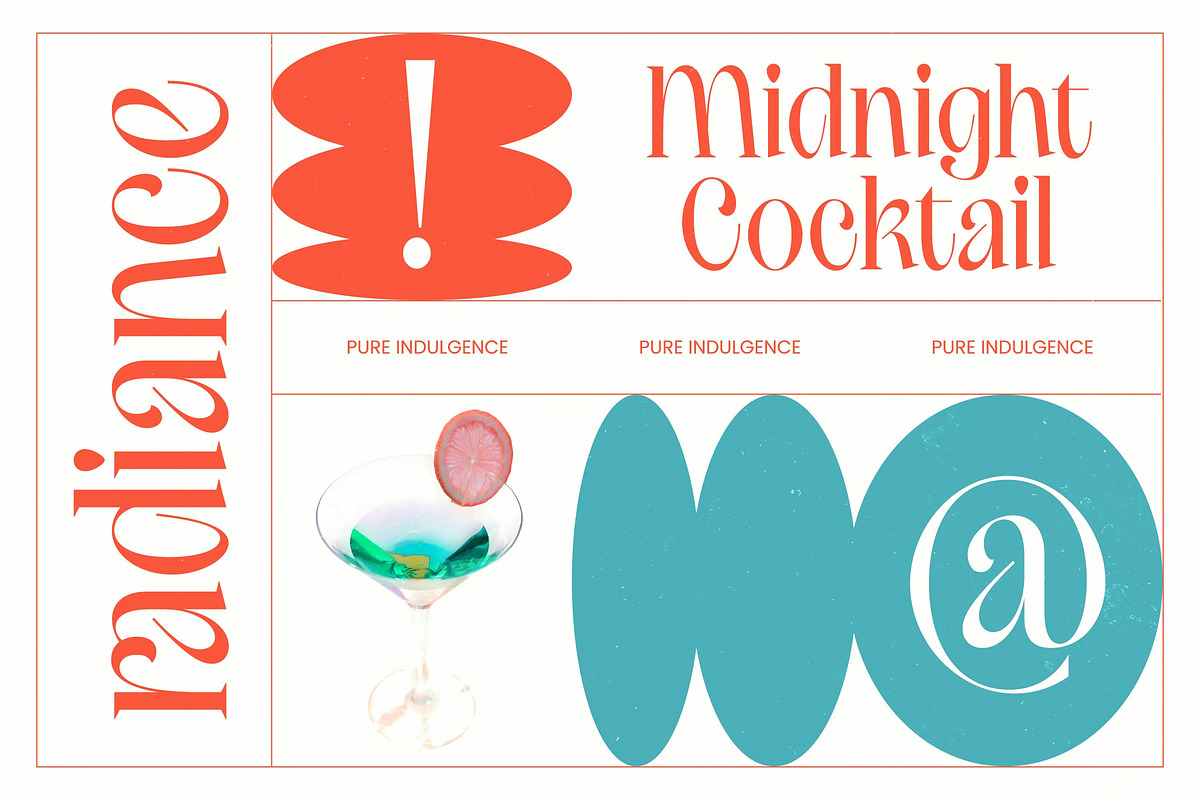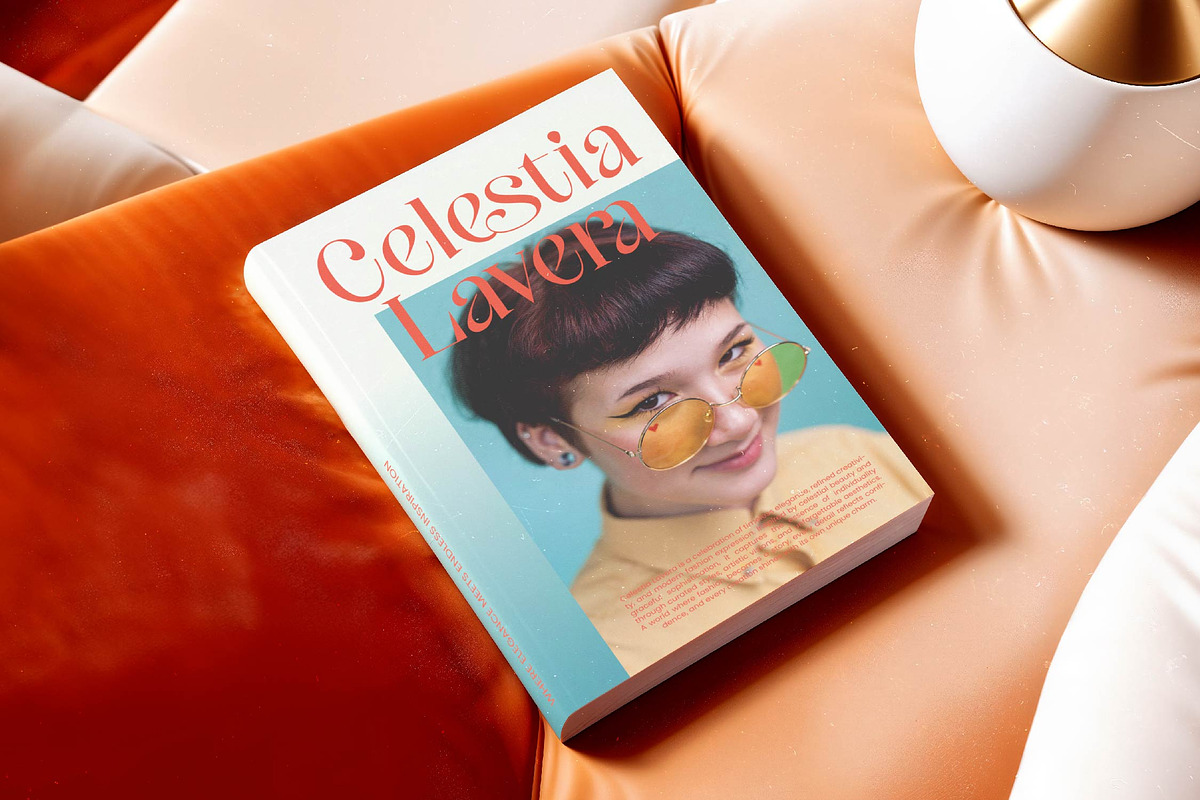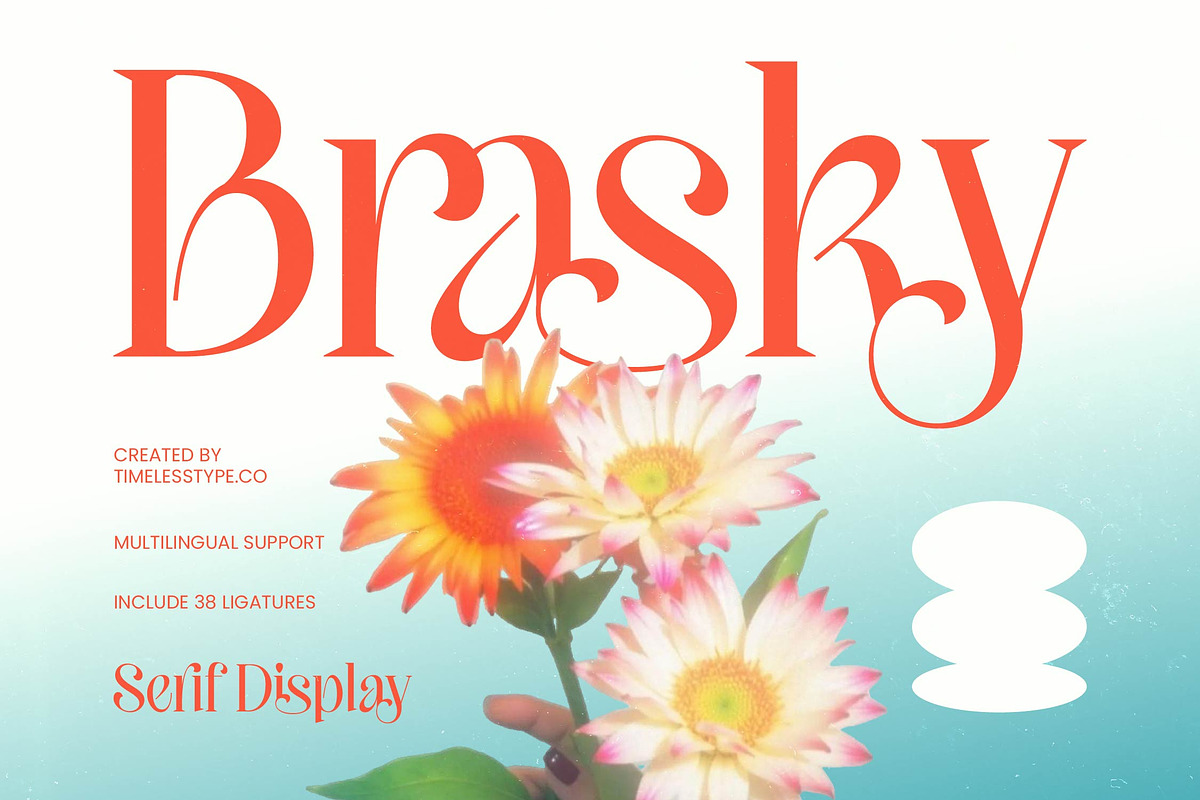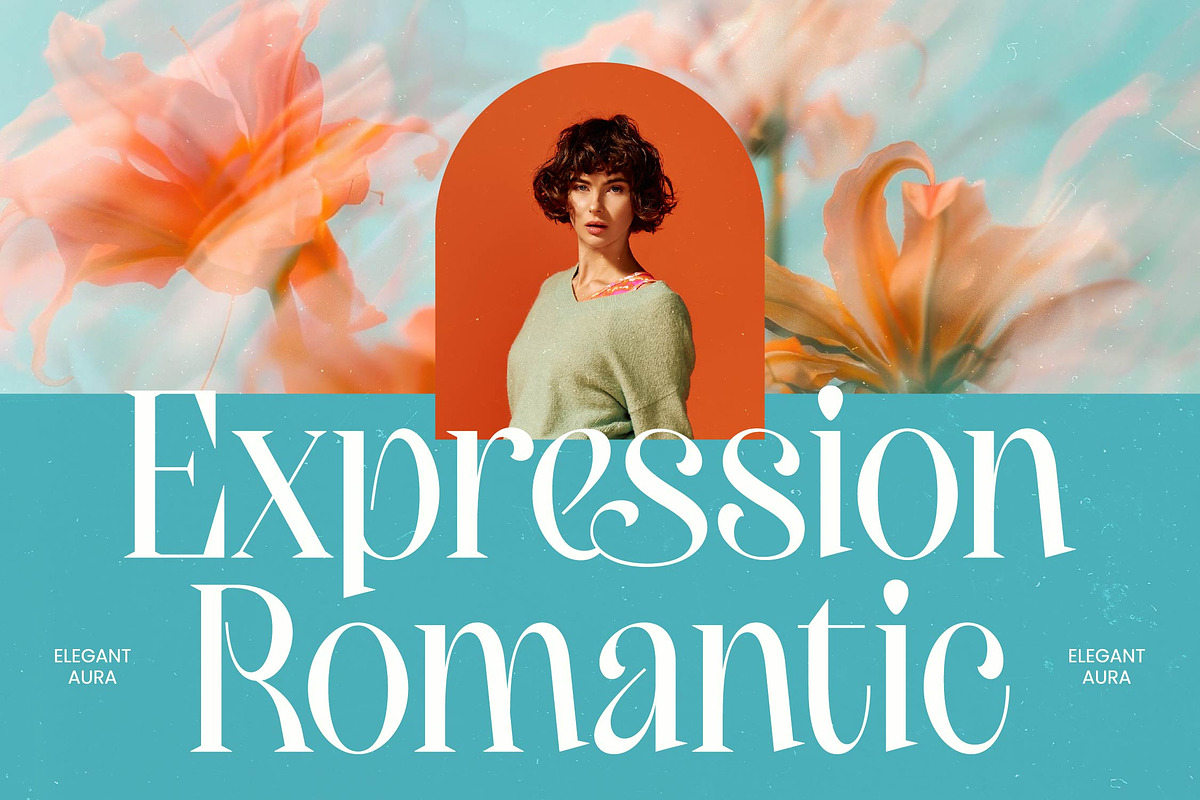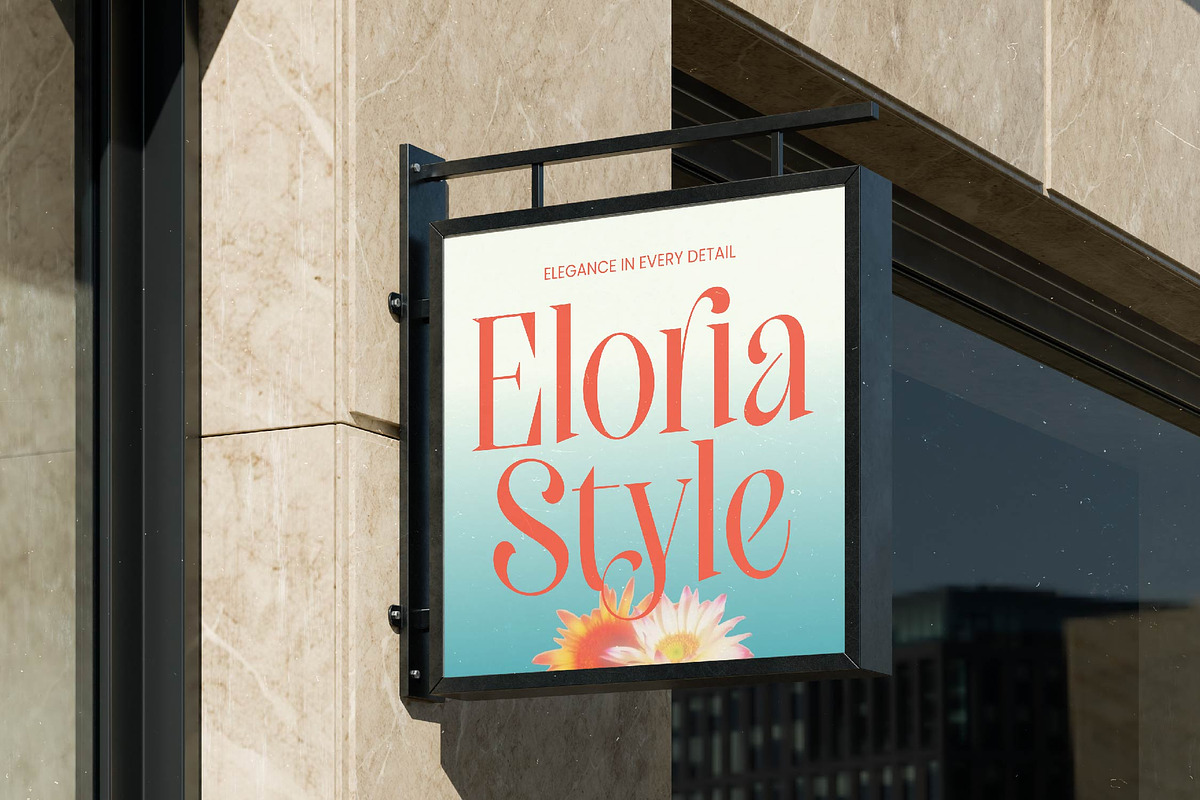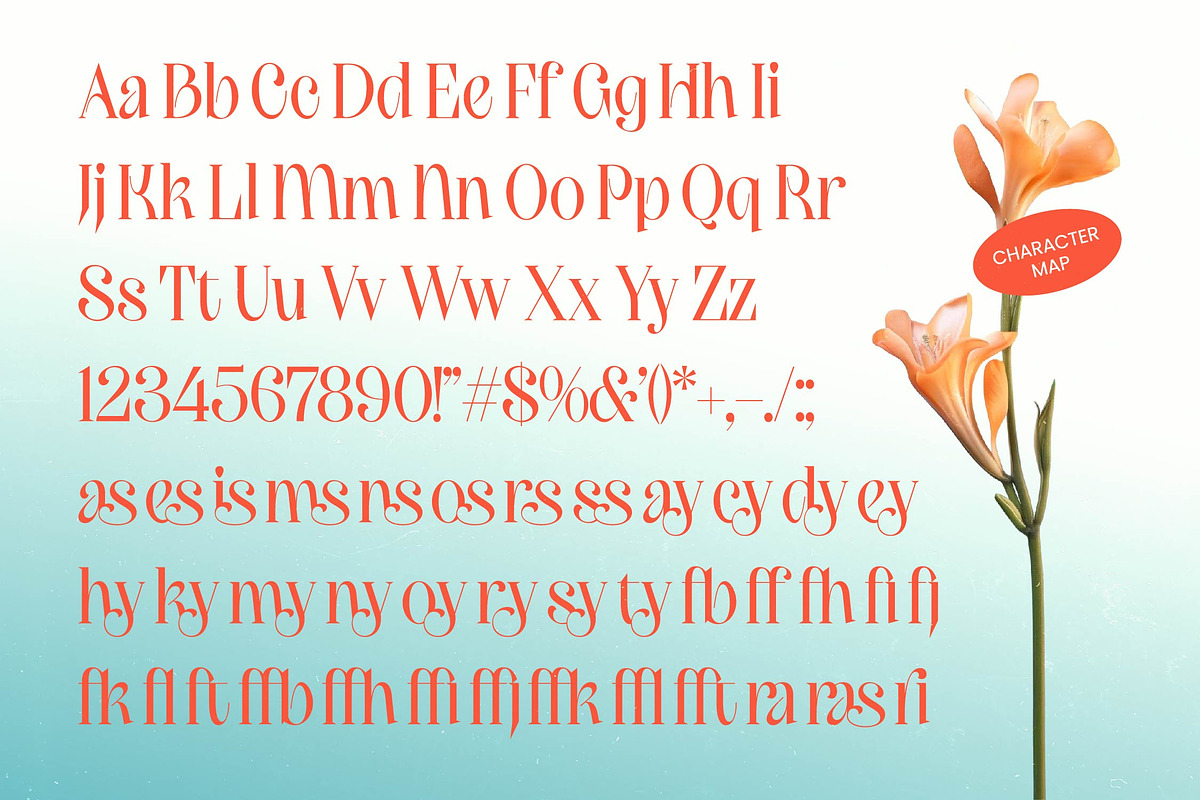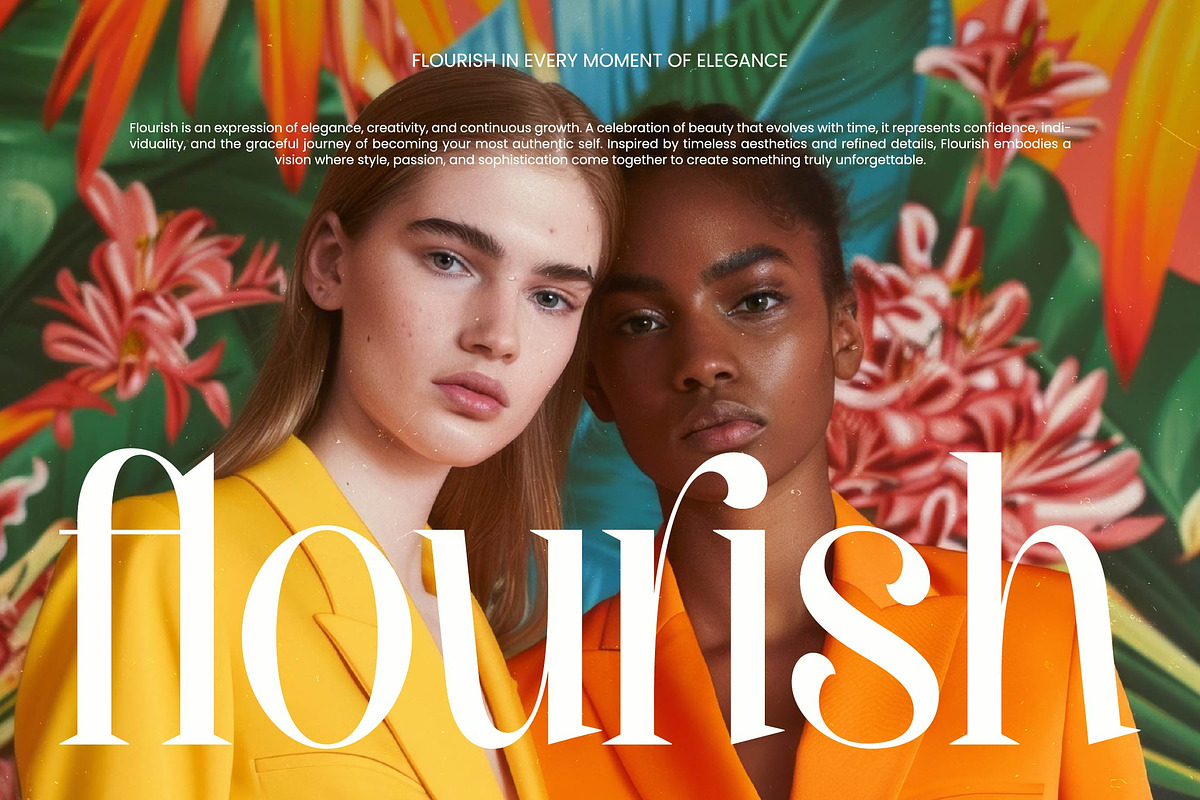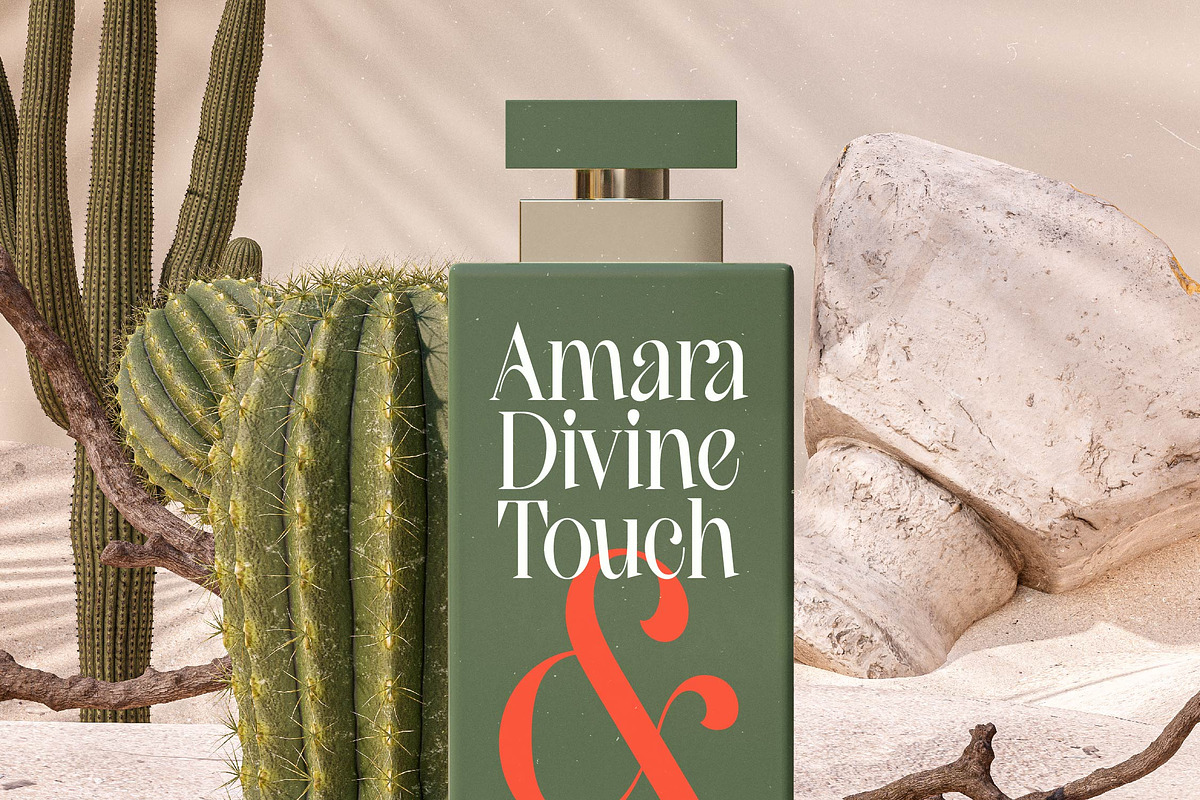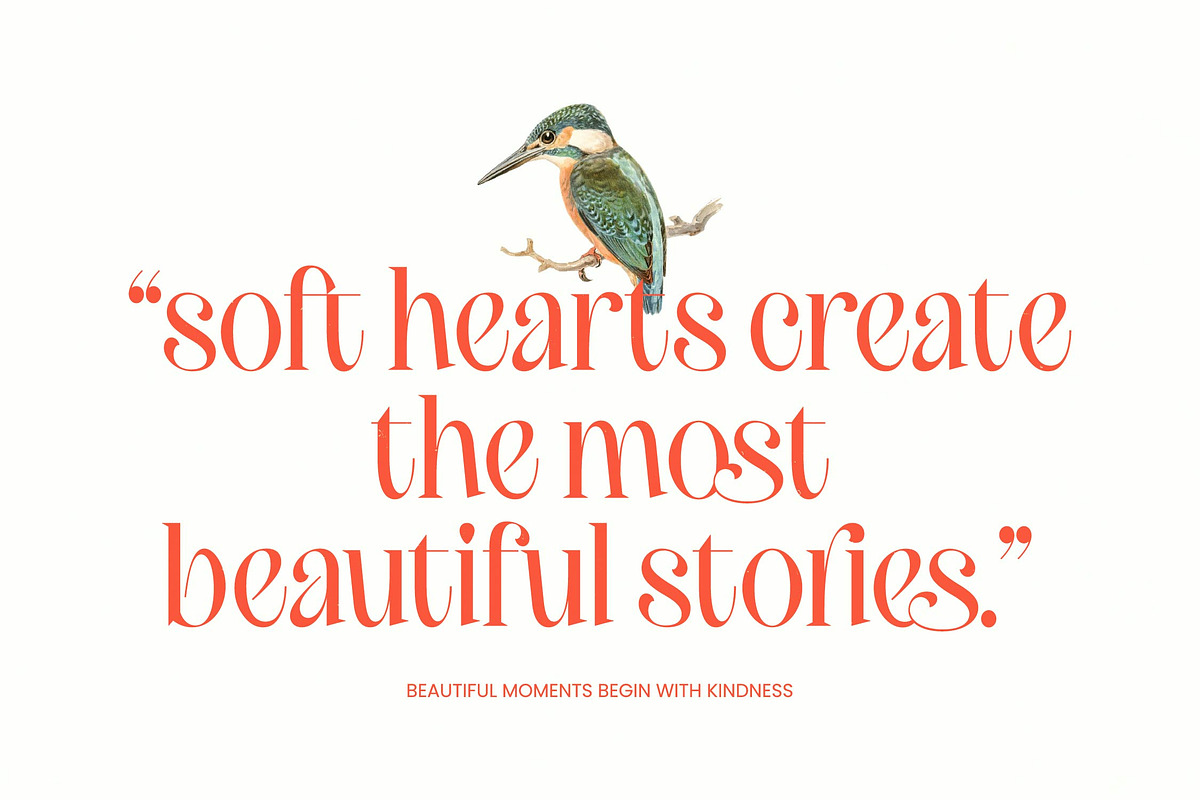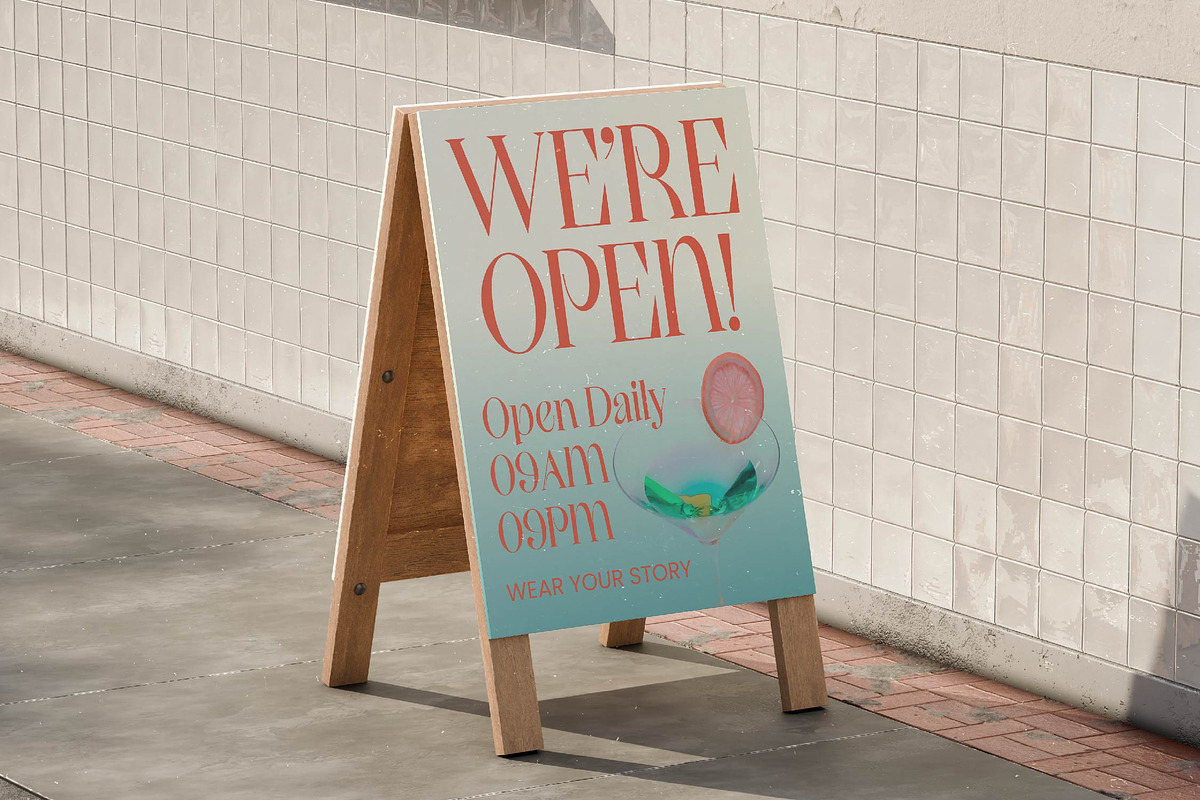
Brasky Modern Serif Display
Brasky – Modern Serif Display , Elevate your design projects with a touch of timeless sophistication and modern flair. Brasky – Modern Serif Display is a masterclass in high-contrast typography, blending classic elegance with a contemporary aesthetic. This typeface is meticulously crafted to command attention, featuring refined letterforms and artistic ligatures that breathe life into any digital or print layout. By choosing Brasky – Modern Serif Display, you are investing in a premium design asset that perfectly balances bold personality with professional restraint.
Break through language barriers and expand your creative reach across the globe. With its extensive multilingual support, Brasky – Modern Serif Display adapts seamlessly across global markets, making it incredibly versatile for international projects. This comprehensive character set ensures that your brand message remains consistent and impactful regardless of the linguistic context or geographic location. Whether you are targeting a local boutique or a multinational corporation, Brasky – Modern Serif Display provides the functional flexibility required for today's diverse design landscape.
Transform your brand identity into a visual statement of luxury and unmatched grace. This typeface is the perfect choice for luxury branding, high-end packaging, and editorial design where visual hierarchy is paramount. Its sculptural serifs and fluid curves make it ideal for fashion magazines, cosmetic labels, and upscale invitations. Designers looking to create a lasting impression will find Brasky – Modern Serif Display to be an essential tool for lifestyle branding and sophisticated advertising campaigns that demand a high-end finish.
Achieve professional-grade results with a font designed specifically for high-impact visual storytelling. Featuring 38 unique ligatures, Brasky – Modern Serif Display offers endless possibilities for custom logotypes and striking headlines. The combination of technical precision and artistic flair ensures that every word looks like a bespoke piece of art, tailored for excellence. Incorporate Brasky – Modern Serif Display into your design toolkit today to stay ahead of modern design trends and deliver unforgettable visual experiences for every client.